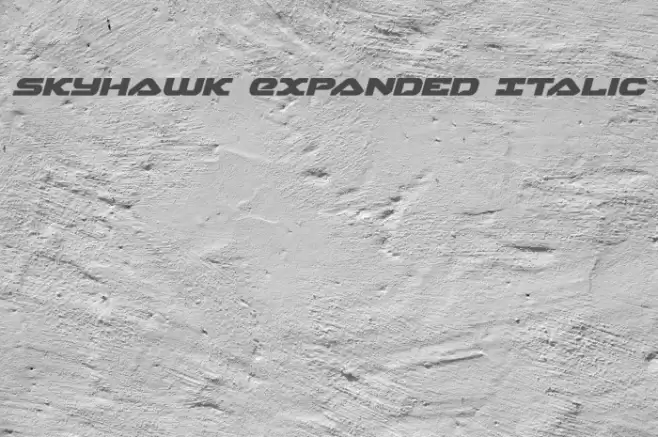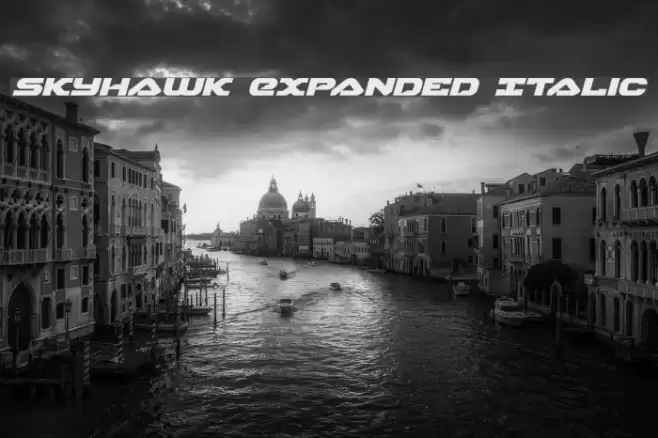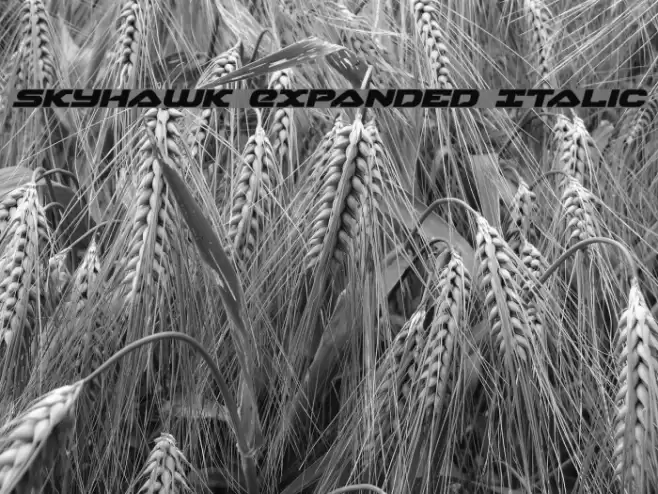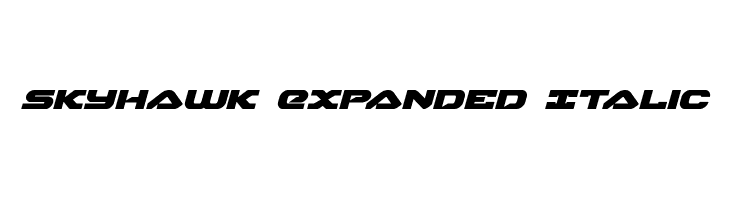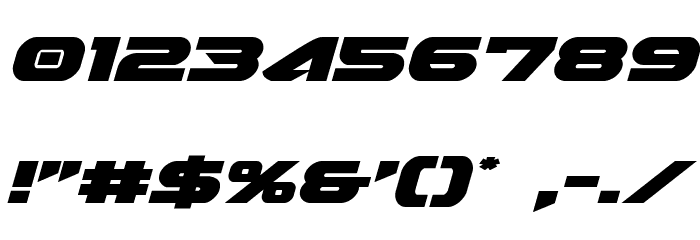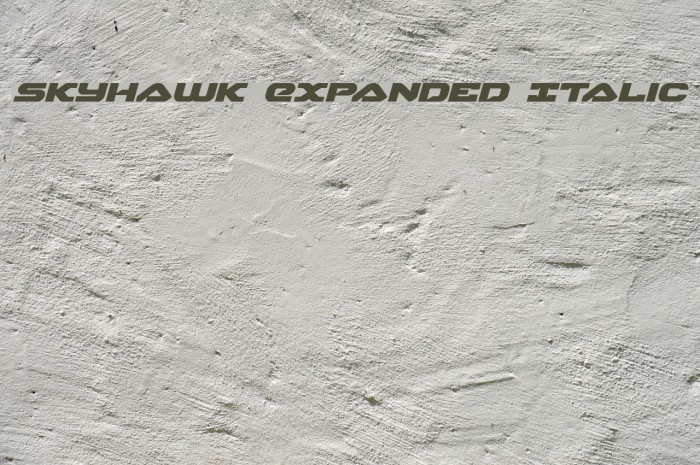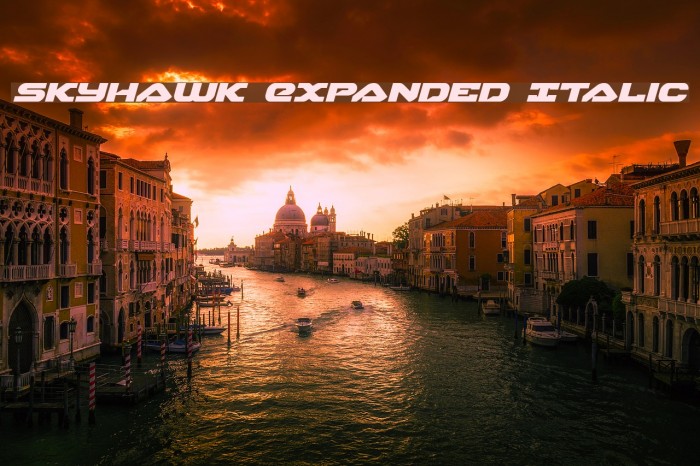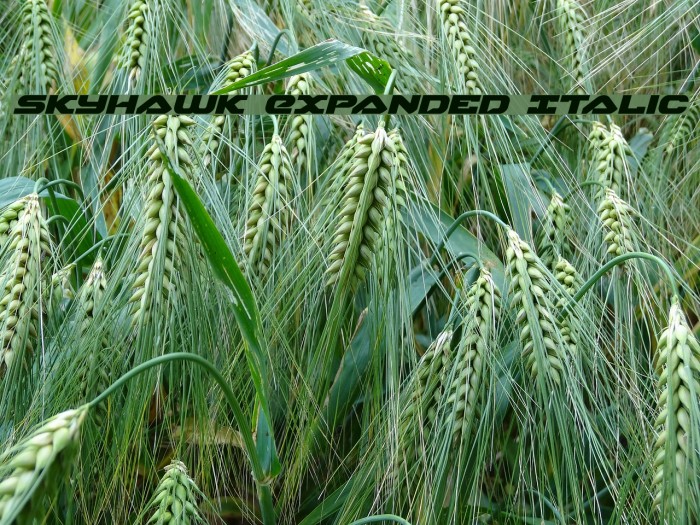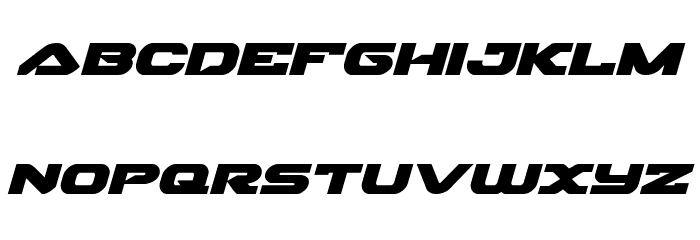
Skyhawk Expanded Italic Font
Skyhawk Expanded Italic Description
This font features a bold and dynamic style with an italic slant, giving it a sense of motion and speed. The characters are expanded, providing a wide and impactful appearance. The strokes are thick and consistent, contributing to a strong visual presence. The design is modern and sleek, suitable for projects that require a futuristic or high-energy aesthetic. The uppercase and lowercase letters maintain a uniform style, while the numerals and special characters complement the overall design, ensuring versatility across various applications.
A bold, expanded, and italic font with a modern, dynamic style from Uncategorized fonts.
- Proposed Projects: Ideal for sports branding, automotive designs, video game titles, and dynamic advertising campaigns.